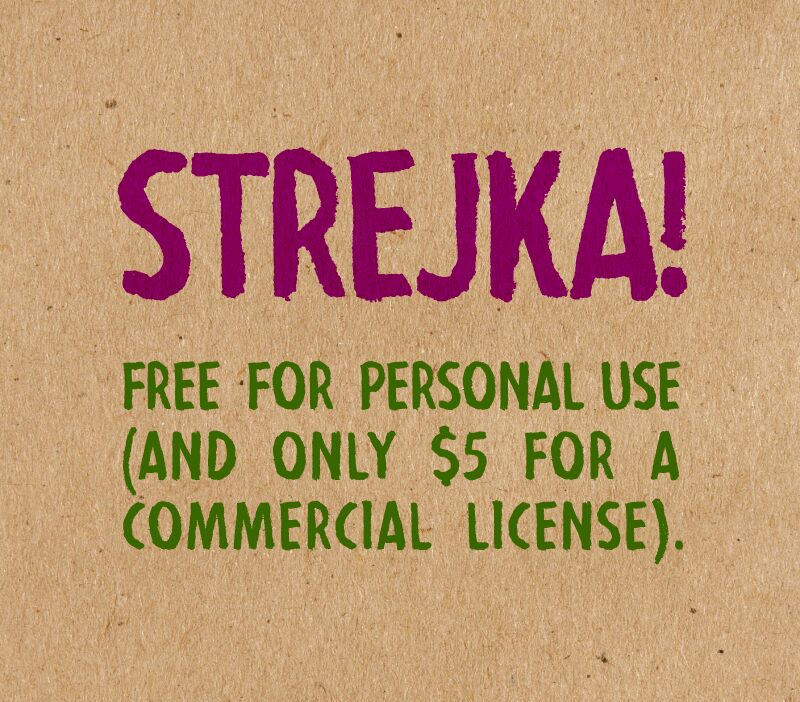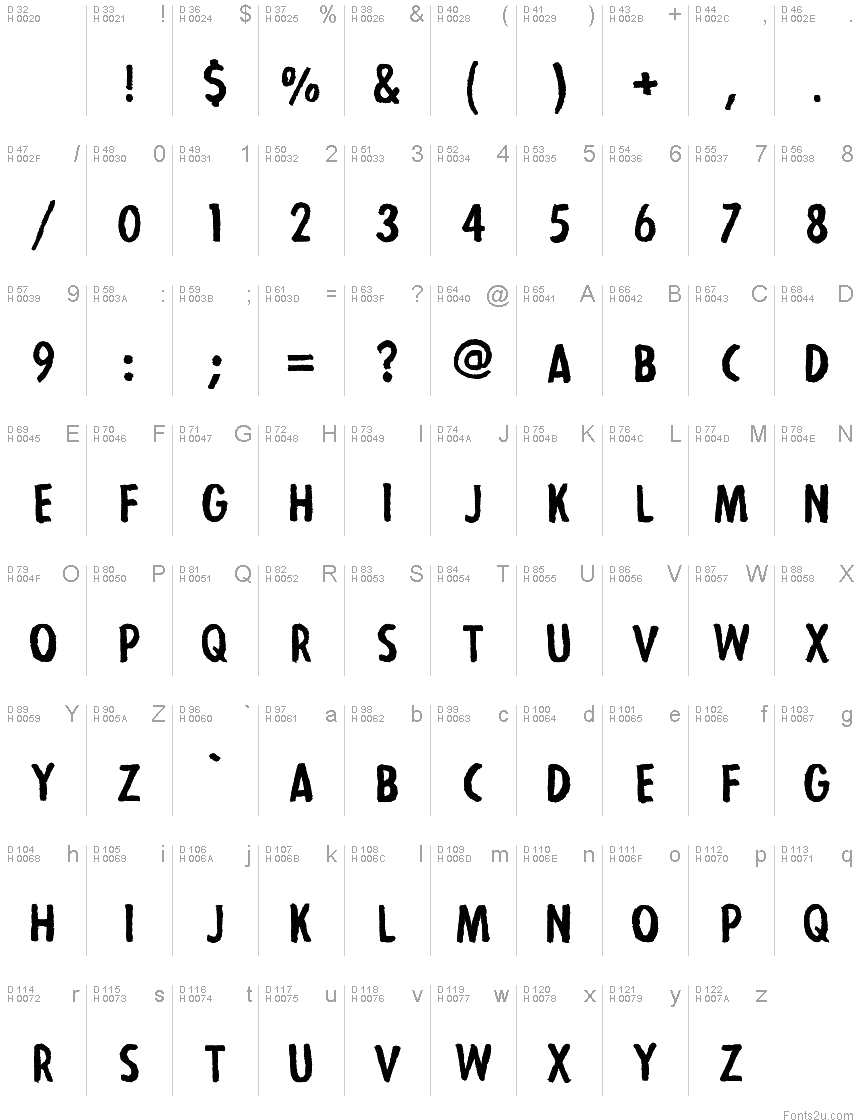
Strejka Regular
A fresh uppercase typeface for strike placards, organic budget packaging and anything else that needs a firm handrawn font.
Strejka Regular is a font designed by HENRIavecunK in 2016.